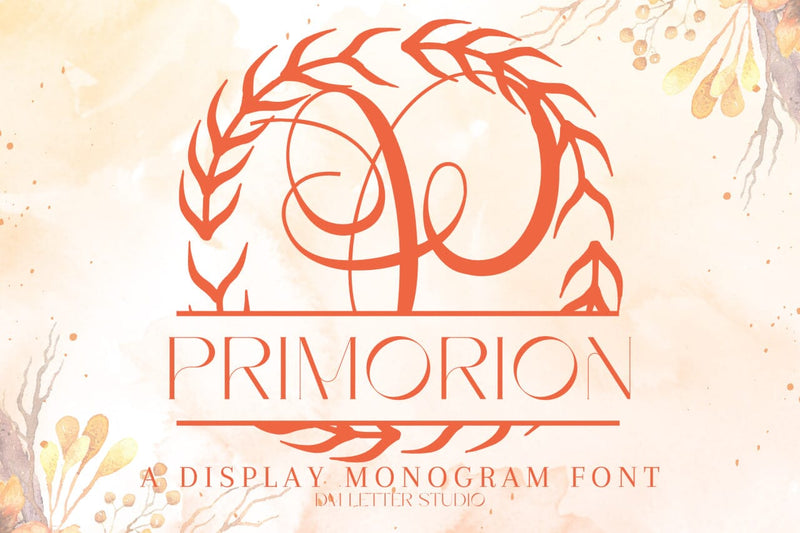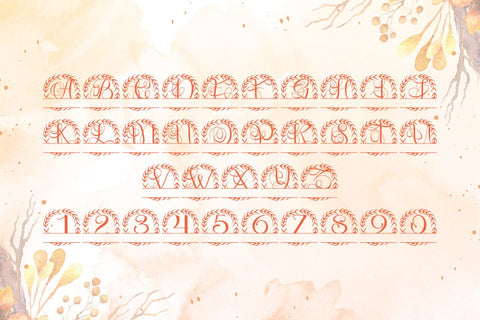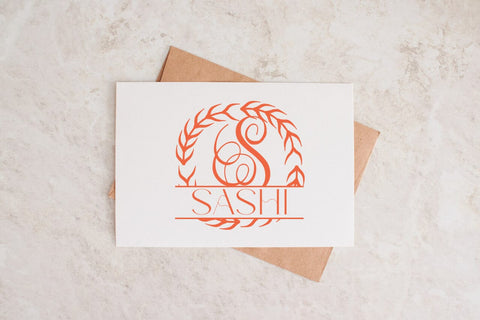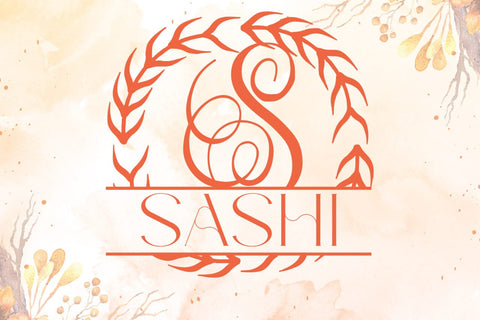
Primorion Split Monogram Font
Meet Primorion Split Monogram Font
Primorion Split Monogram Font turns any initial into a sleek, name-ready emblem in seconds. Calm, confident letterforms project modern luxury, while a precise horizontal split creates natural space for names, dates, or short words. Because spacing stays even and counters remain open, designs look polished on tiny tags, tumblers, ornaments, menus, door hangers, and statement wall art. Pair it with a clean sans or a light script and every layout stays readable and refined.
Where this split monogram font shines
Set one hero initial and place the family name inside the split for instant personalization. Try couple names for engagement gifts, venue names for signage, or short words like Home, Welcome, and Love for seasonal décor. Since the proportions favor clarity, files scale smoothly for Cricut, Silhouette, Glowforge, and laser projects. As a result, batch customization becomes fast and consistent across shop listings and product lines.
Design tips for Primorion Split Monogram
Keep the hero initial large and let white space breathe. Set the split at center or slightly low for a steady baseline. Choose a simple secondary font inside the split to protect legibility on small items. Because the style is modern and refined, metallic foils, linen textures, pearlescent stocks, and natural woods add instant value. Keep names concise so the composition remains balanced and clear at thumbnail size.
Uppercase alphabet optimized for split monograms
Matching lowercase, numbers, punctuation
Why makers choose this split monogram font
You want fast personalization that still feels bespoke. Primorion Split Monogram Font delivers consistent, high-end name designs in minutes while keeping your shop’s visual language cohesive across gifts and signage.